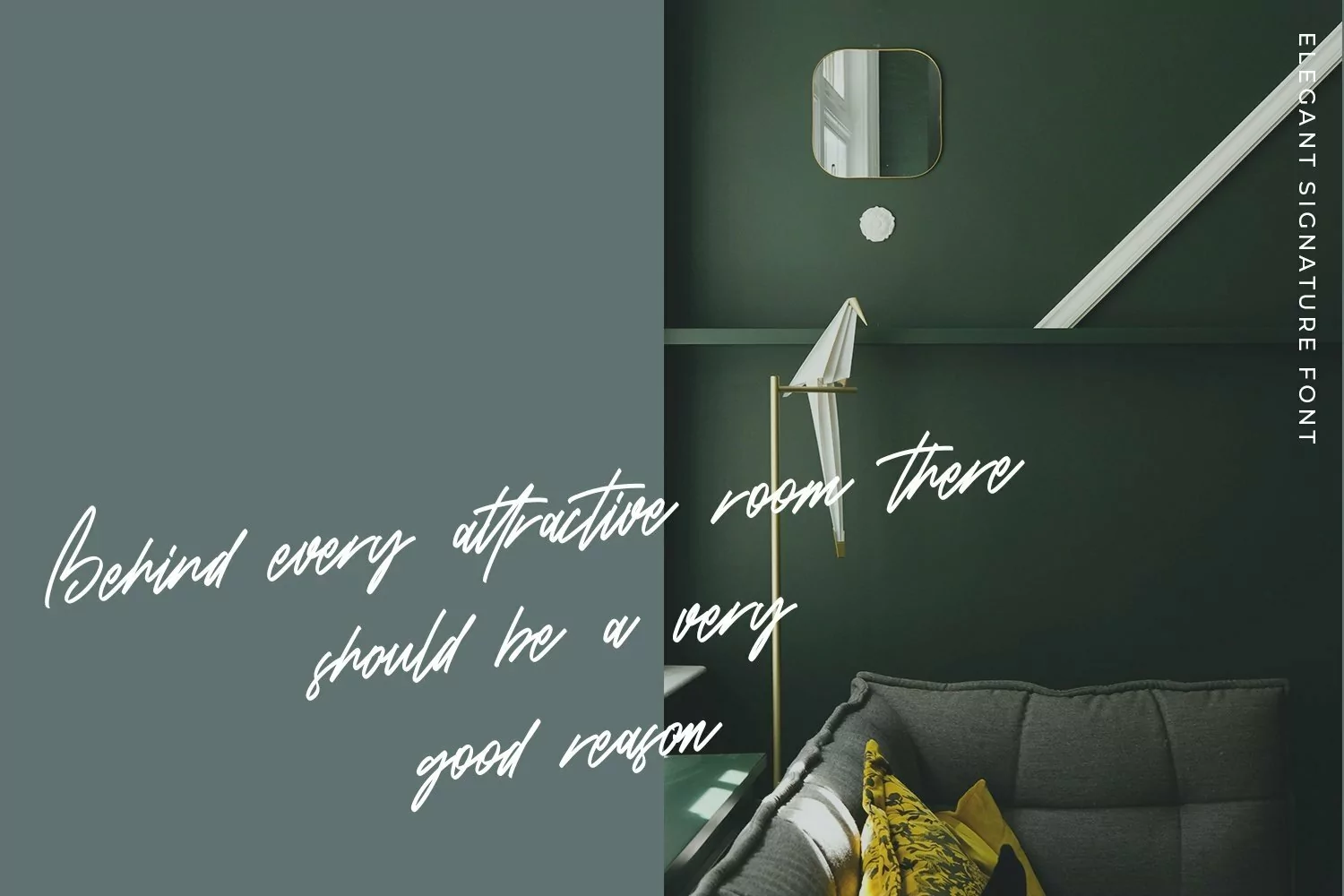
Rosetta - Handlettered Font that contain lowercase, uppercase, symbol, and also support multi language. There’s a lot ligatures in this font. This Font also comes with ligatures, alternates and many more. this font suitable for fashion, branding, catalog and other design what you want.